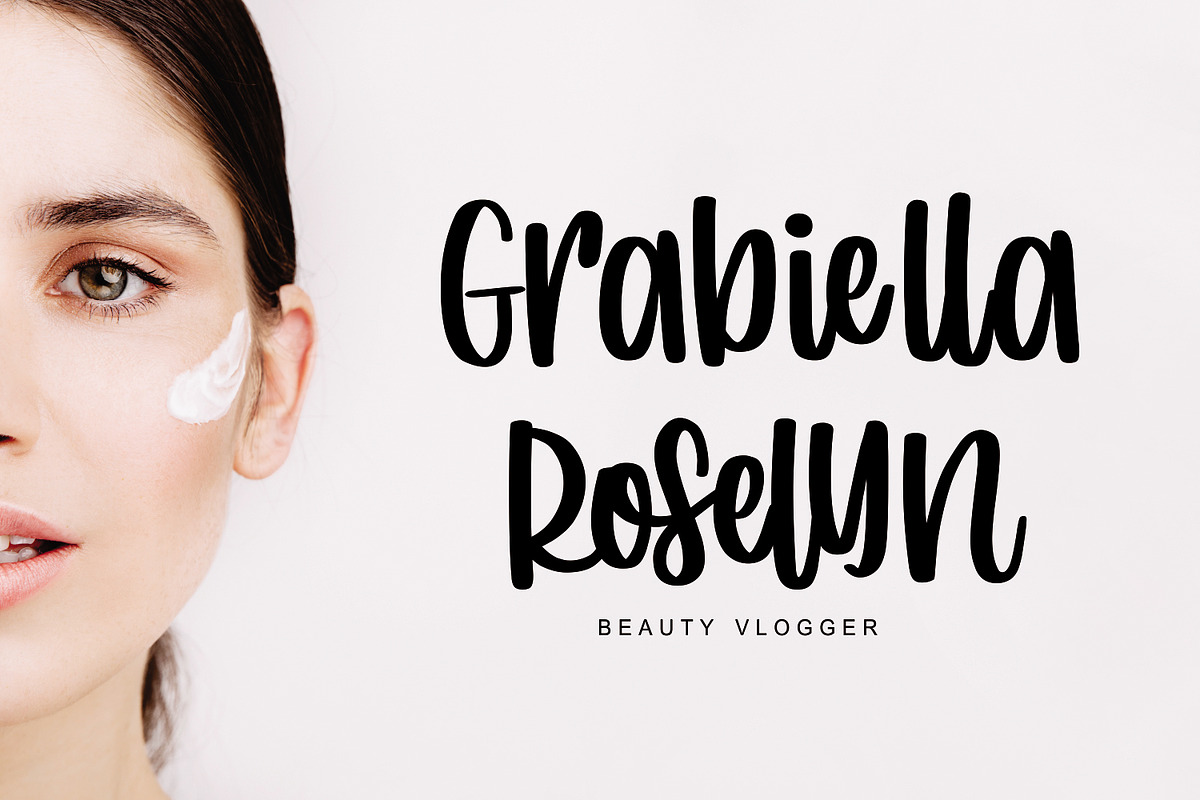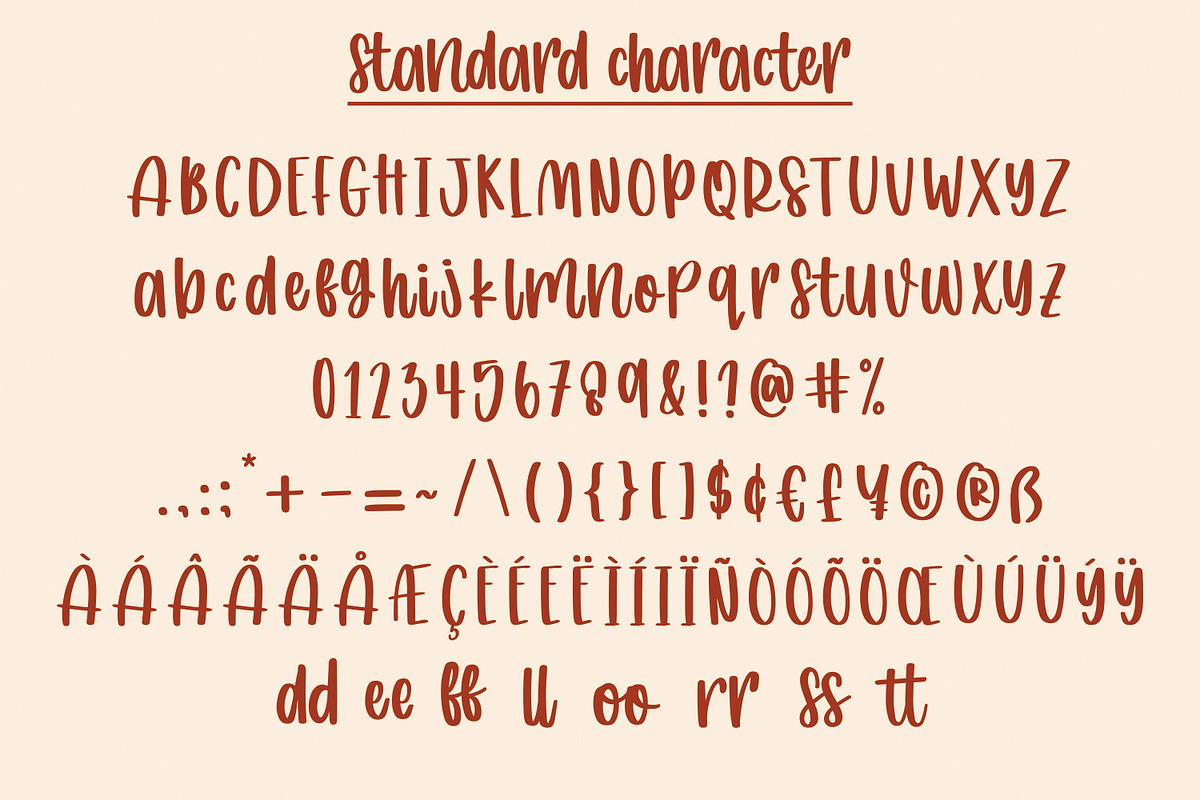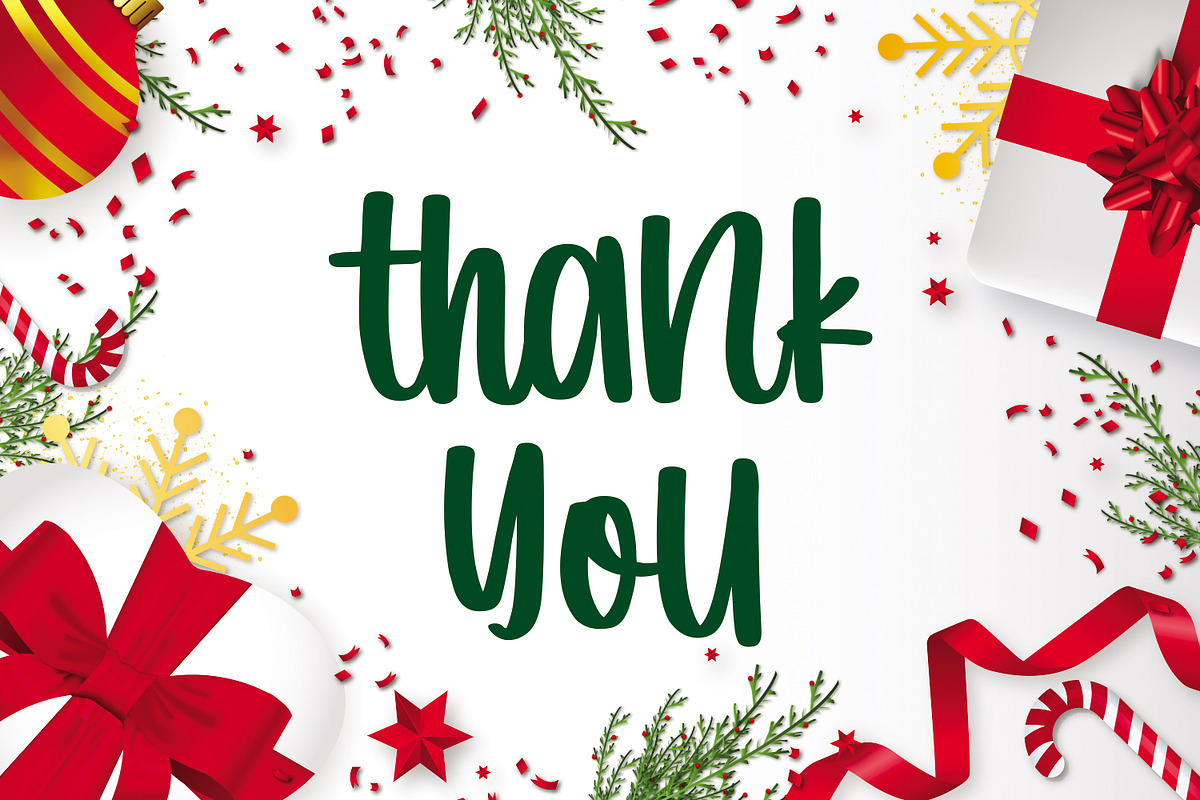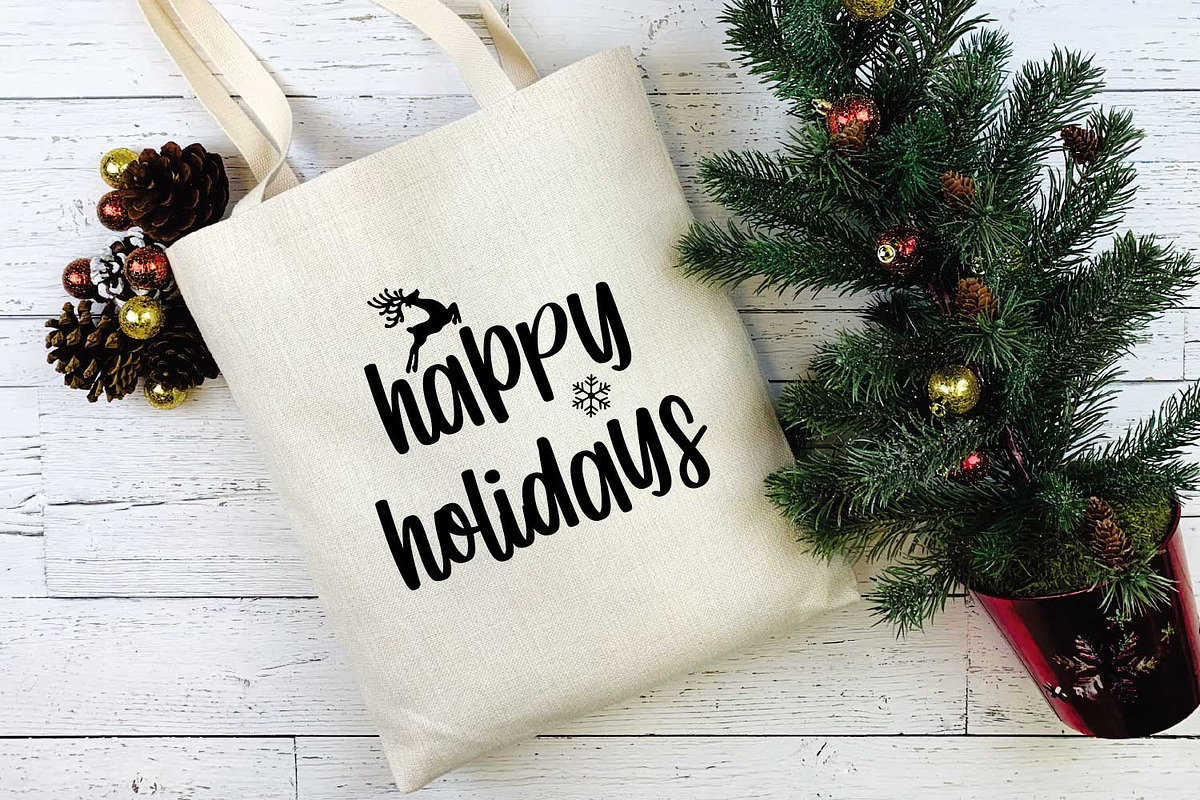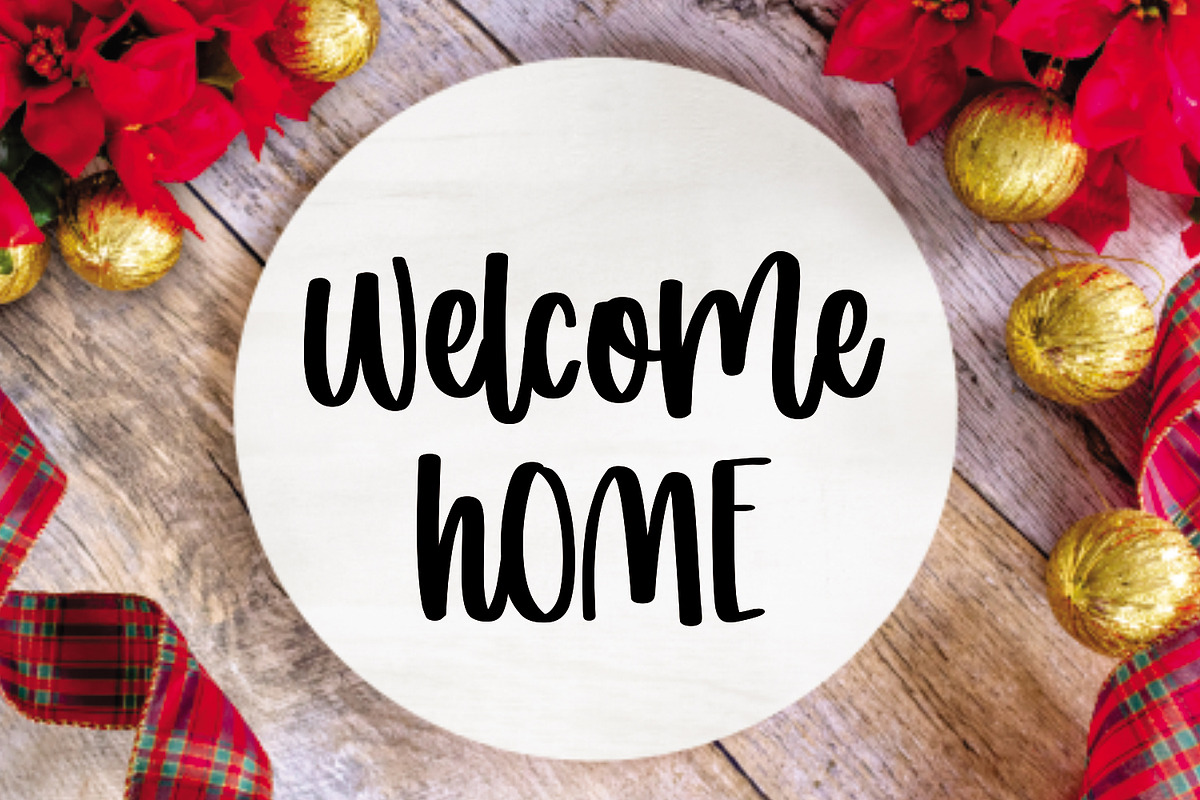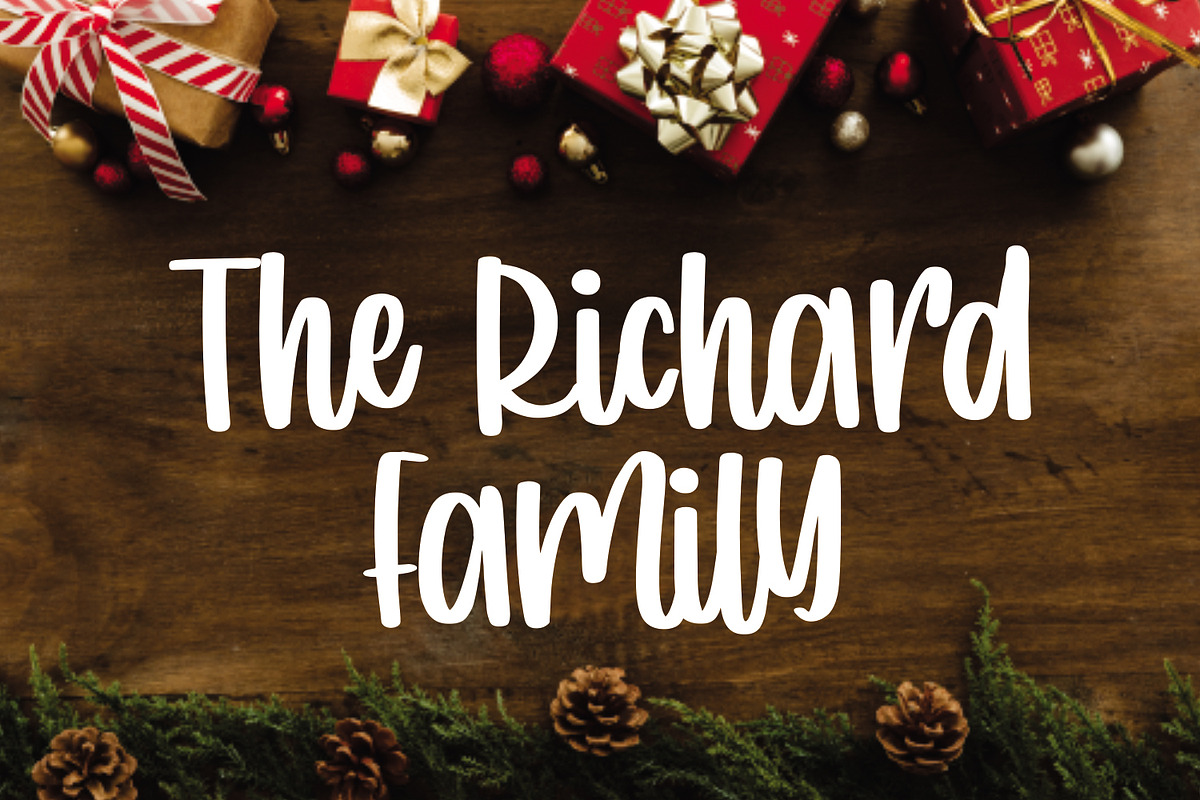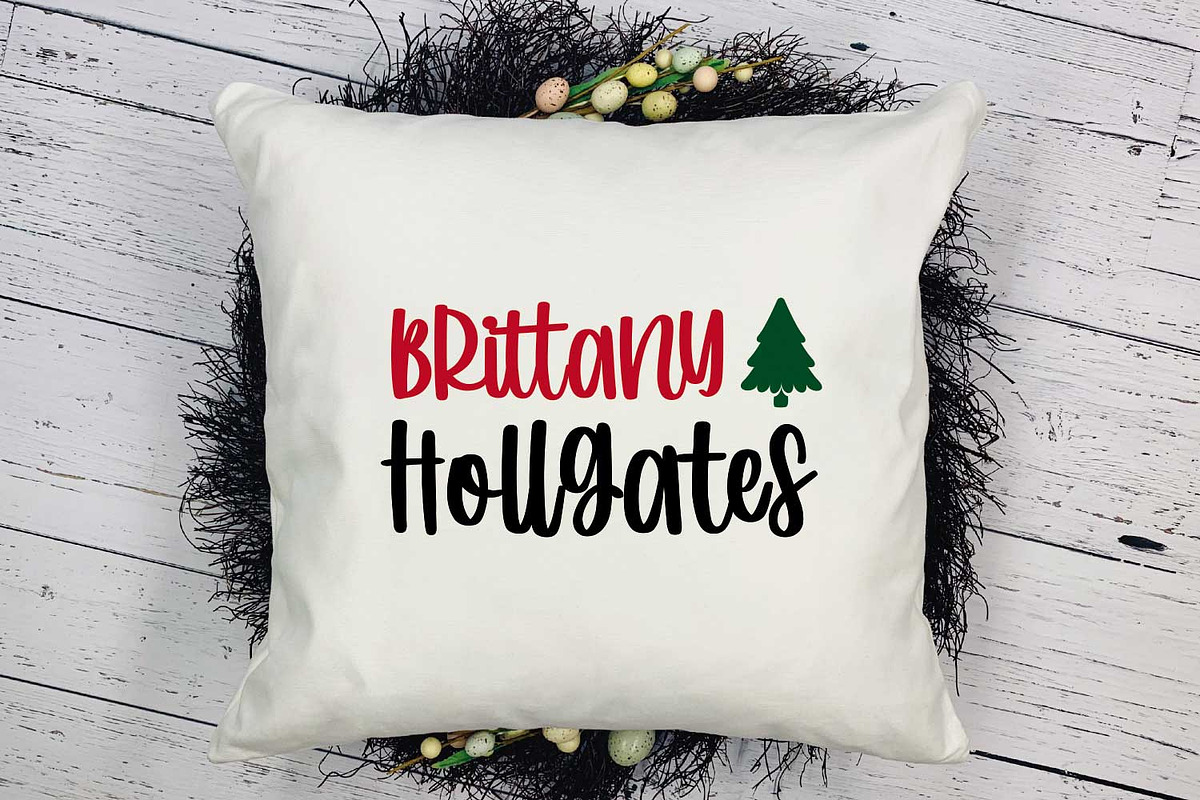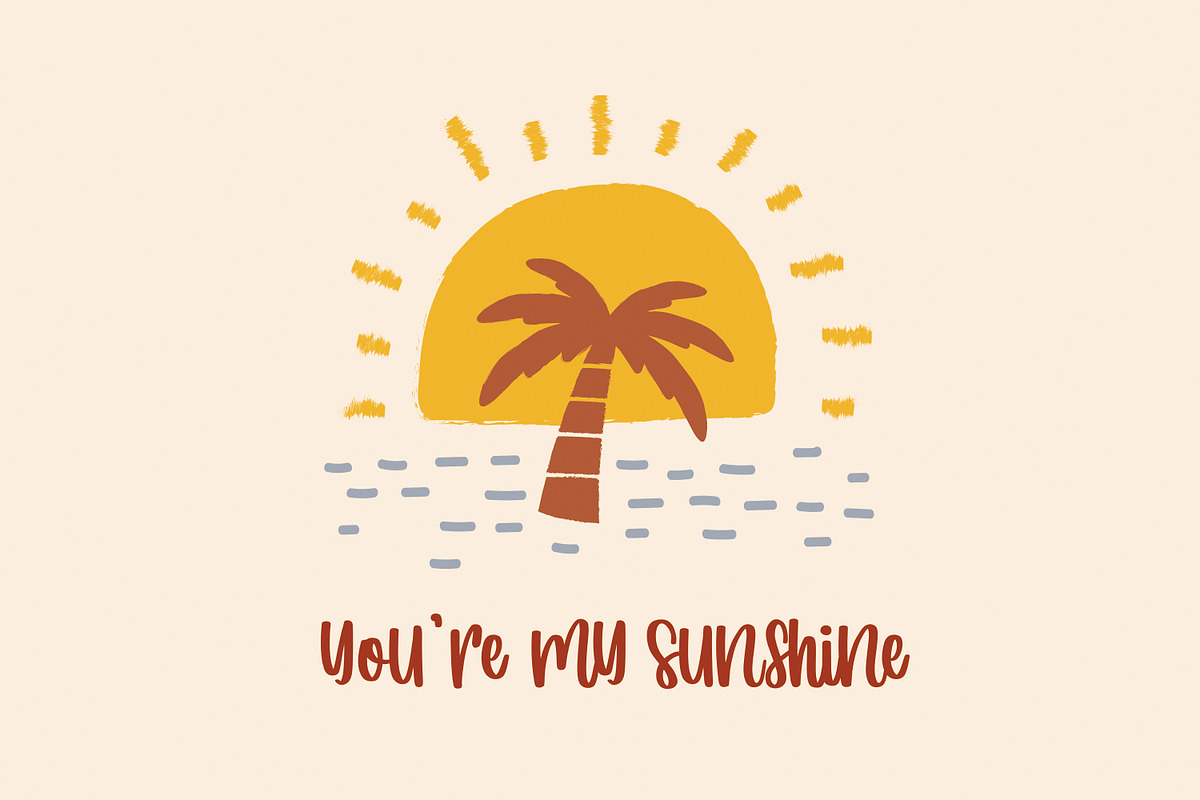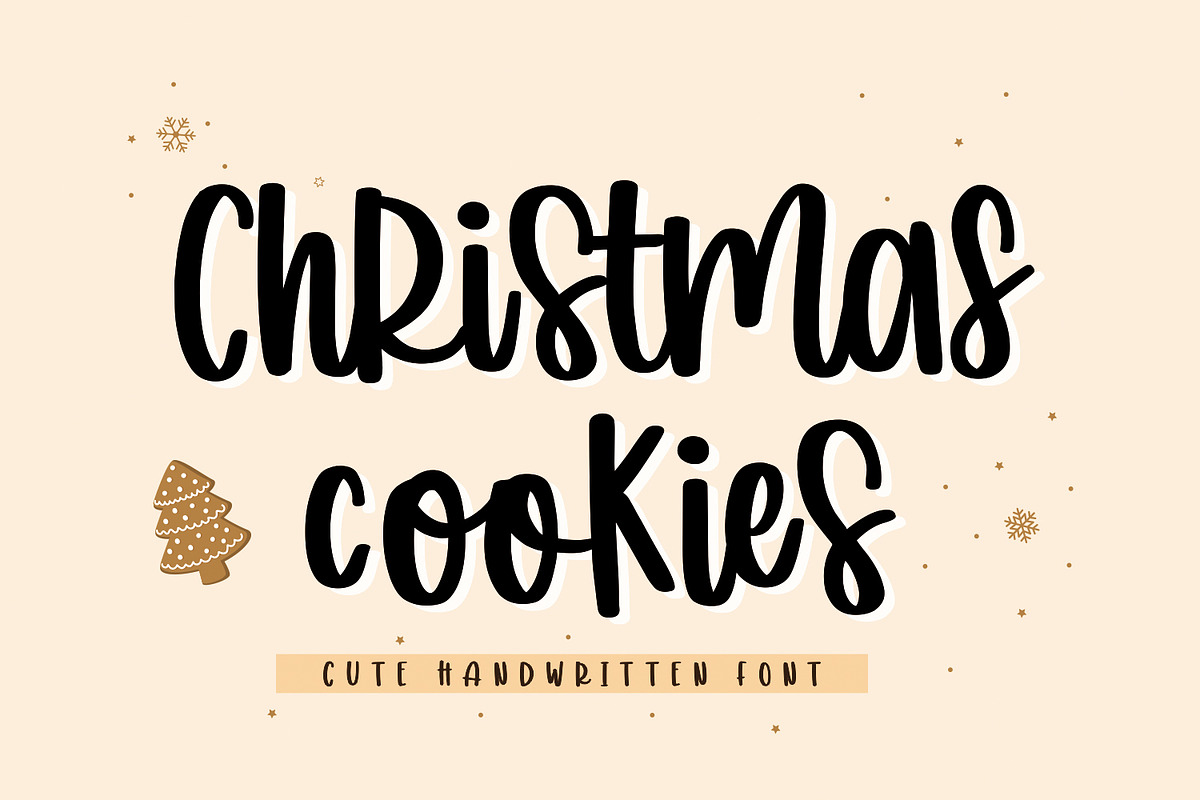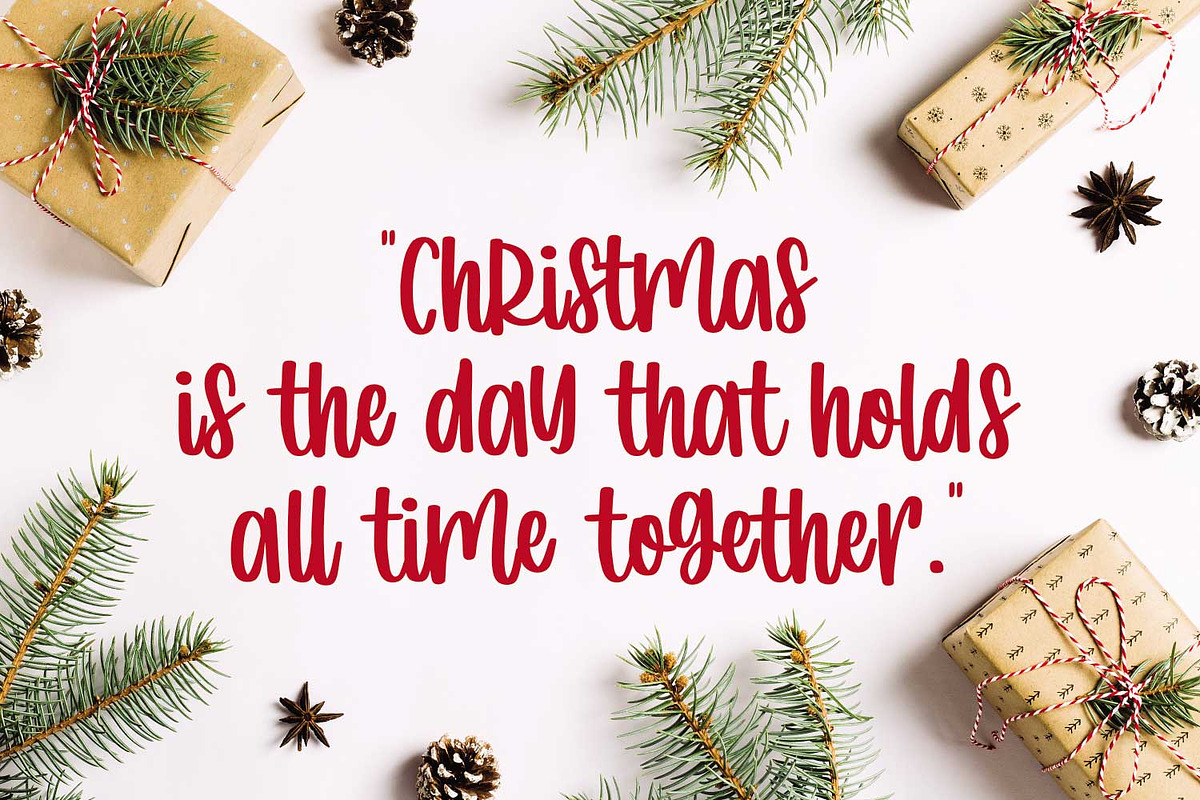
Christmas Cookies
Christmas Cookies is a cute handwritten font. It is PUA encoded which means you can access all of the glyphs and swashes with ease!
This font is ideal for crafting, branding, decorating, farmhouse designs, shirts, SVG designs, branding, blogs, logos, invitations, and more! Also with their help, you can create a logo or beautiful frame for your home. Or just use it for your business, book covers, stationery, marketing, magazines, and more.
Fall in love with its incredibly versatile style and use it to create spectacular designs! Use this font for any crafting project that requires a personalized look!